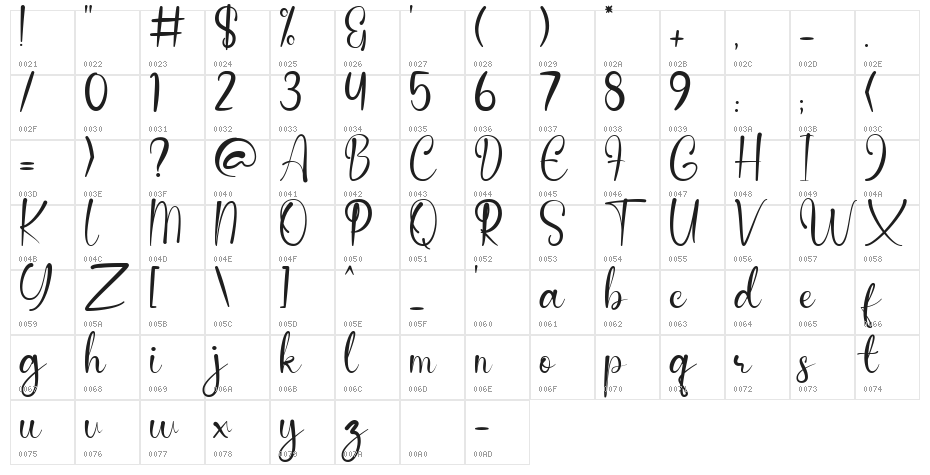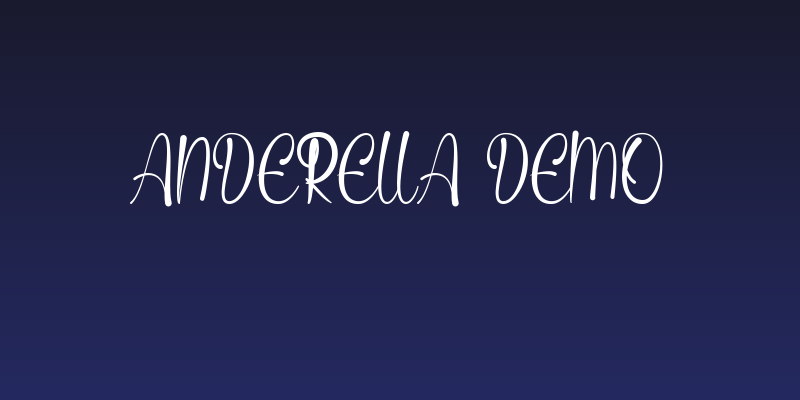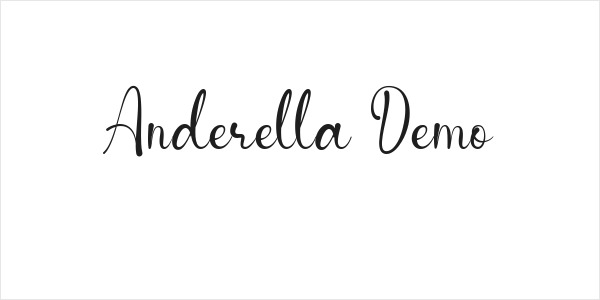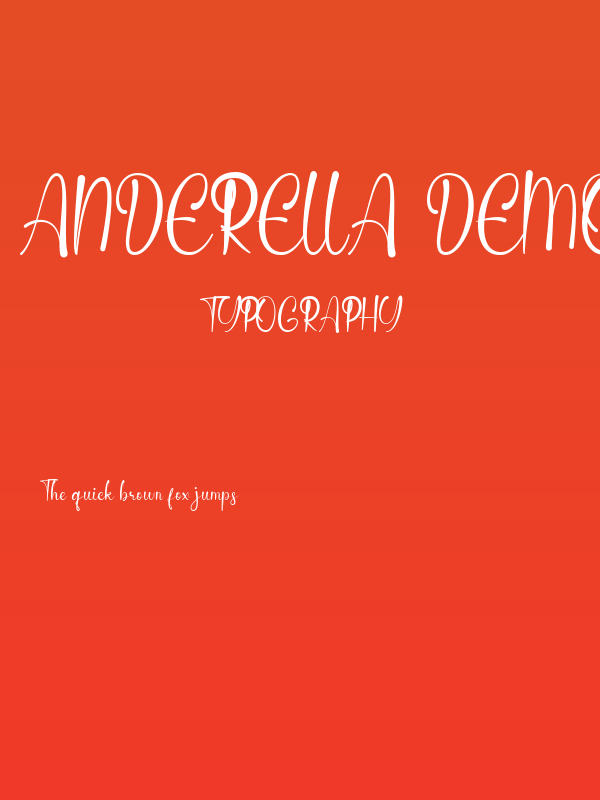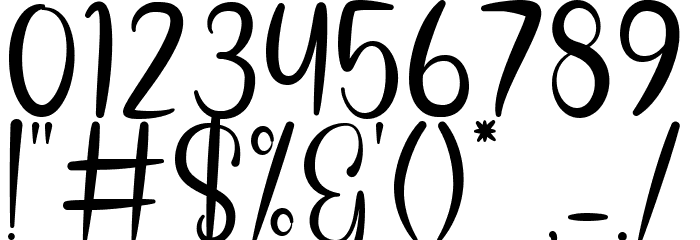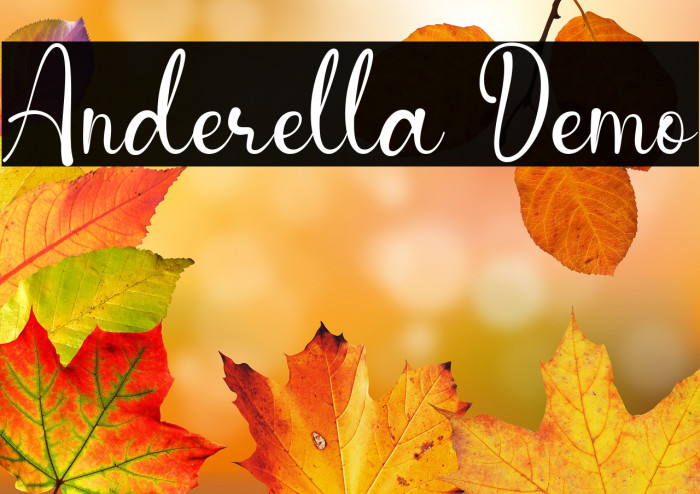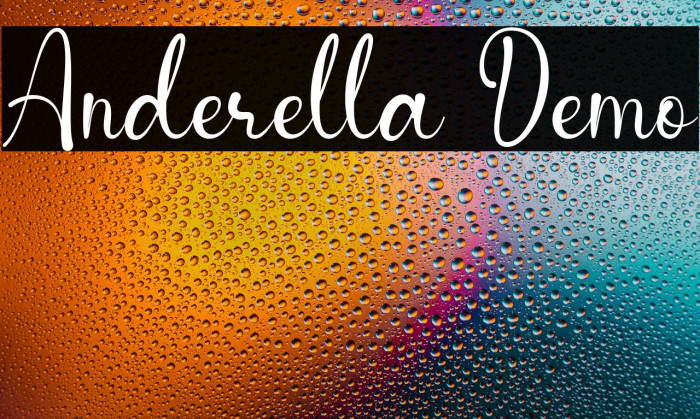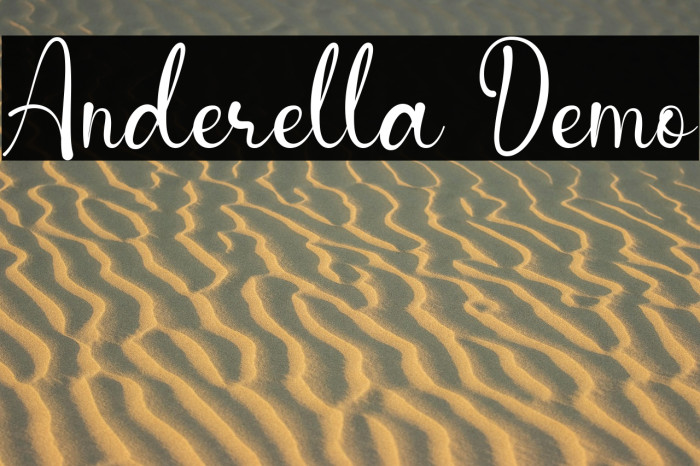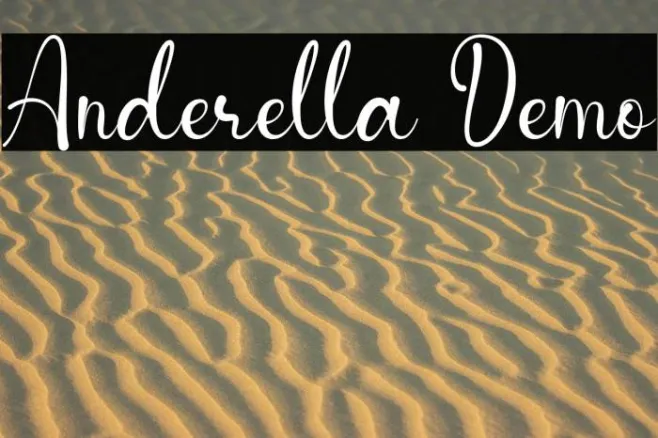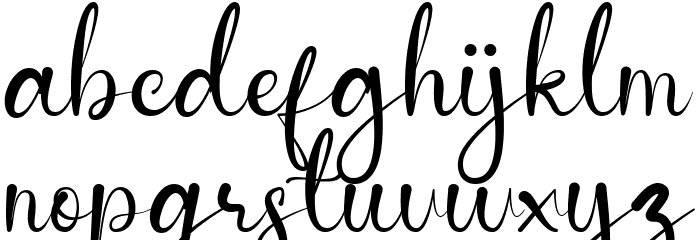
Anderella Demo Font
Anderella Demo Description
This font features a playful and elegant script style with a handwritten appearance. The uppercase letters are tall and slightly narrow, with a whimsical flair that adds a touch of sophistication. The lowercase letters are more rounded and connected, creating a smooth and flowing look. The numerals are bold and consistent with the overall style, maintaining the playful yet elegant theme. Special characters are creatively designed, complementing the font's aesthetic. This font is perfect for projects that require a personal and artistic touch, such as invitations, greeting cards, and branding materials.